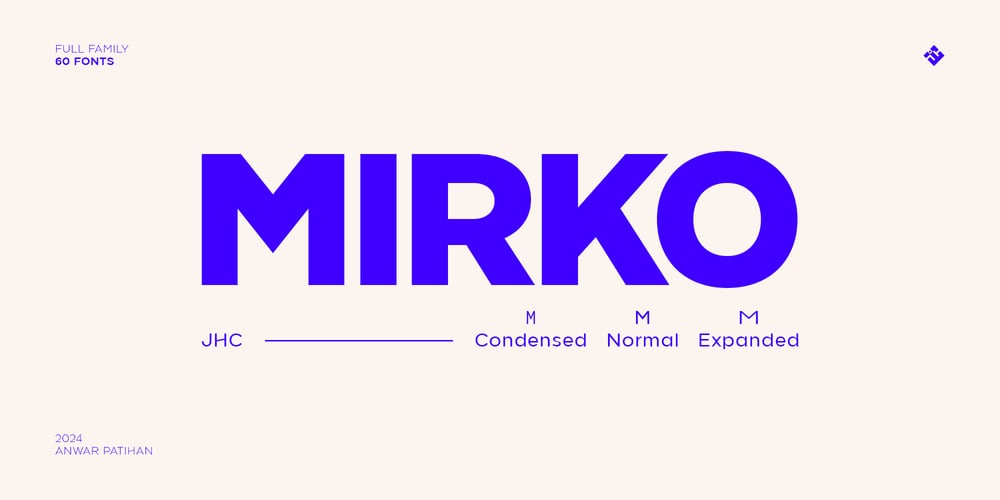
JHC Mirko Font Family was designed by Anwar Patihan and published by Jehoo Creative. JHC Mirko contains 60 styles and family package options. JHC mirko is a modern sans-serif typeface characterized by its basic geometric shapes and distinctive letterforms. This font blends simplicity with unique design letters such as A, E, F, G, H, L, T, V, and W, making it both functional and visually engaging. JHC mirko is also versatile in its application, offering three width variants: Condensed, Normal, and Expanded. These options allow for flexibility in various design contexts, whether you need a compact look, a standard width, or a more expansive and bold appearance.Moreover, JHC mirko supports Greek and Cyrillic scripts, making it a great choice for projects that require multilingual capabilities. This font is ideal for branding, advertising, web design, and editorial projects where a clean, modern, and slightly unconventional typeface is desired.